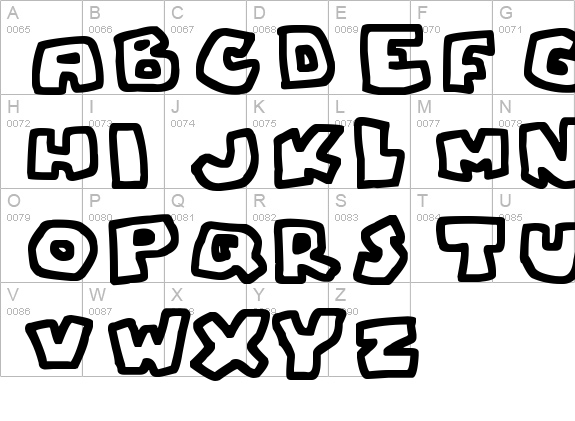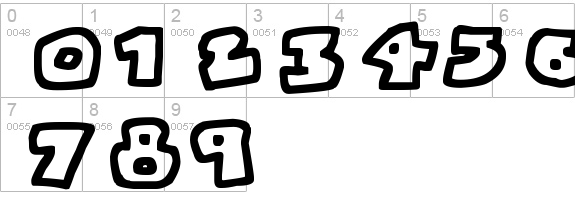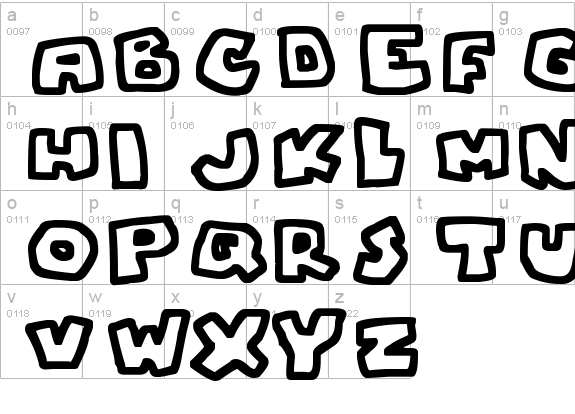
Chunky Boulder Outlines Font Details
Chunky Boulder Outlines is a free for personal use font in the General > Outline category, designed by Darrell Flood. It has been downloaded 34 times and is available for Windows, Mac and Linux.
Chunky Boulder Outlines font is a bold and eye-catching typeface that exudes strength and solidity. Its thick lines and rugged edges give it a unique and powerful appearance, making it perfect for designs that require a strong and impactful message. The chunky boulder-inspired outlines add a touch of rawness and authenticity to any project, making it stand out from the crowd.